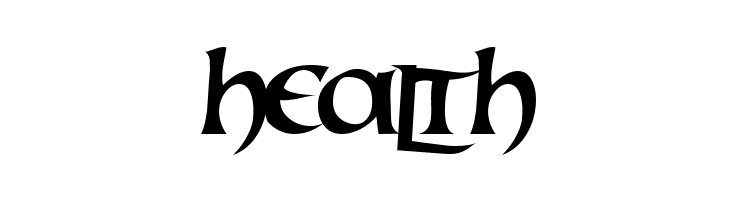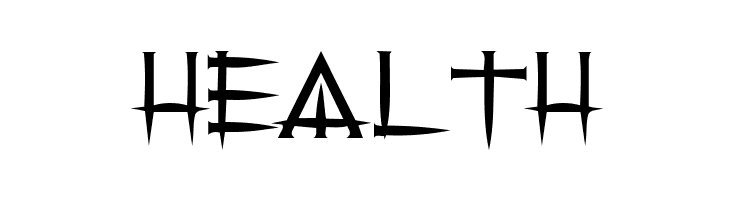
A bold, modern font with geometric structure and consistent stroke widths.
A bold, fiery font with flame-like extensions for dramatic designs.
( Fonts by Levi Halmos )
A decorative serif font with a blend of traditional and modern elements.
( Fonts by Utopiafonts )
A bold, gothic-inspired font with sharp, angular lines and dramatic serifs.
A bold, shadowed serif font with a dramatic and elegant style.
( Fonts by Sinister Visions - Chad Savage - www.sinisterfonts.com )
A sharp, gothic-inspired font with angular lines and dramatic spikes.
A sleek, modern oblique font with sharp angles and a futuristic aesthetic.